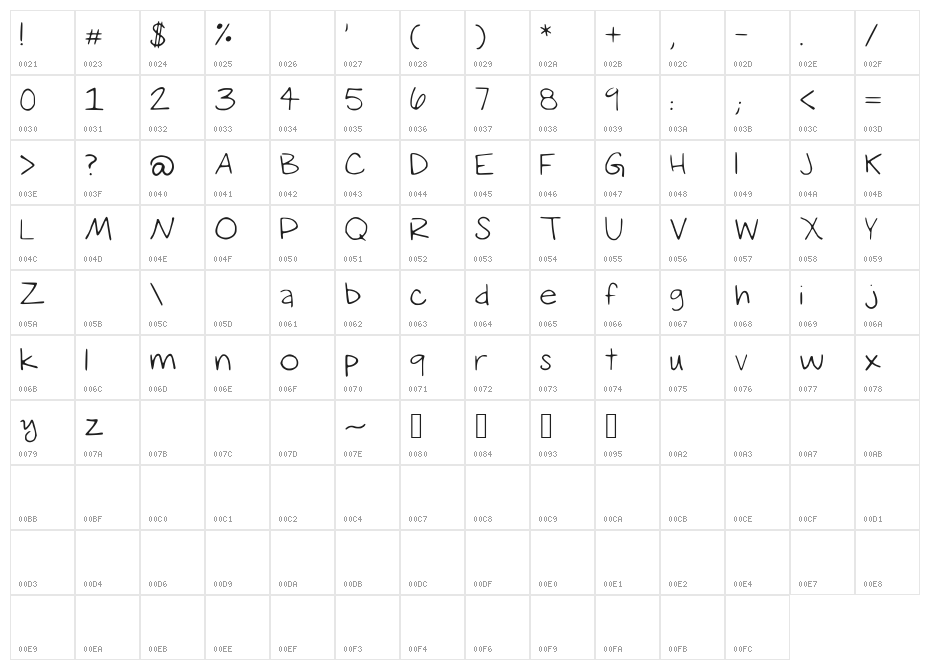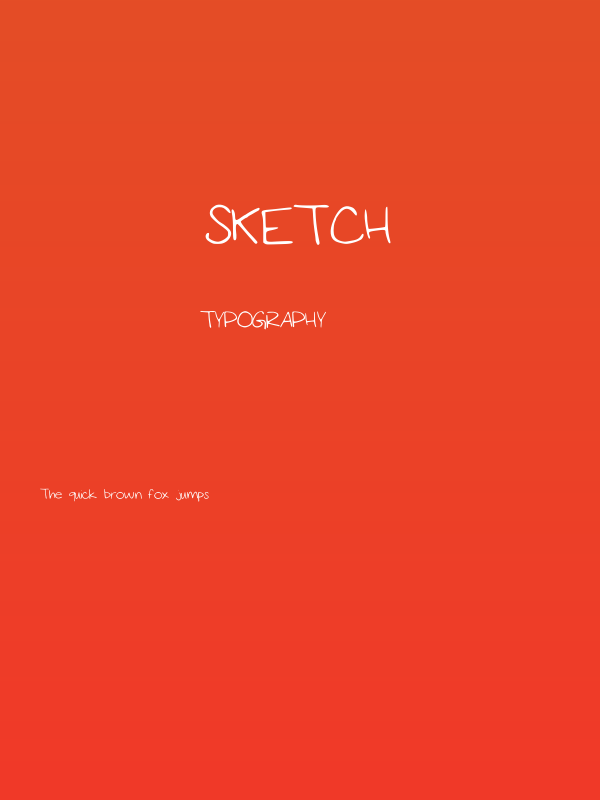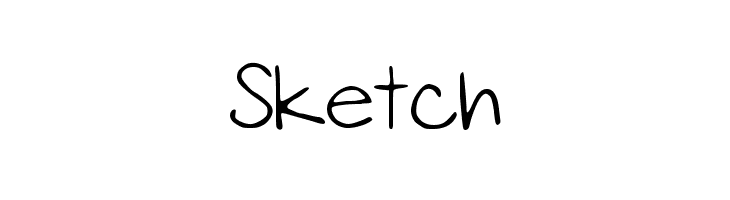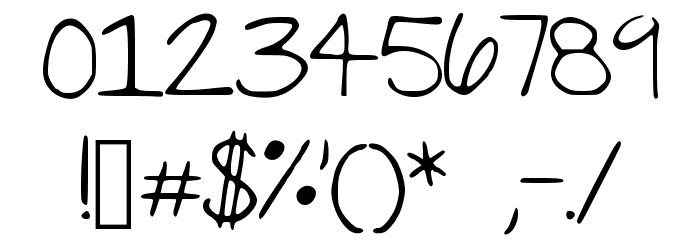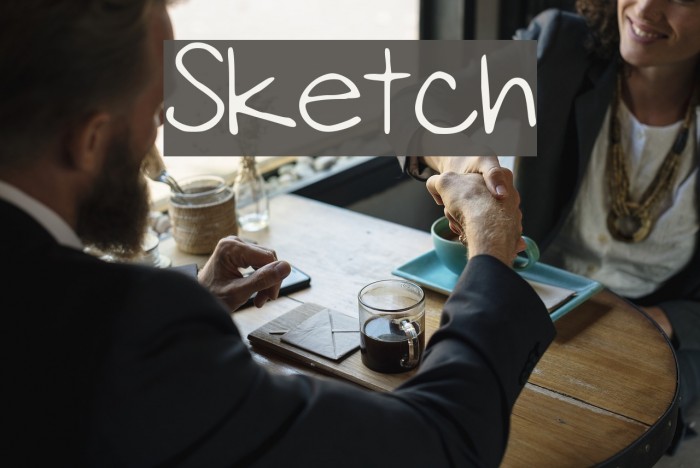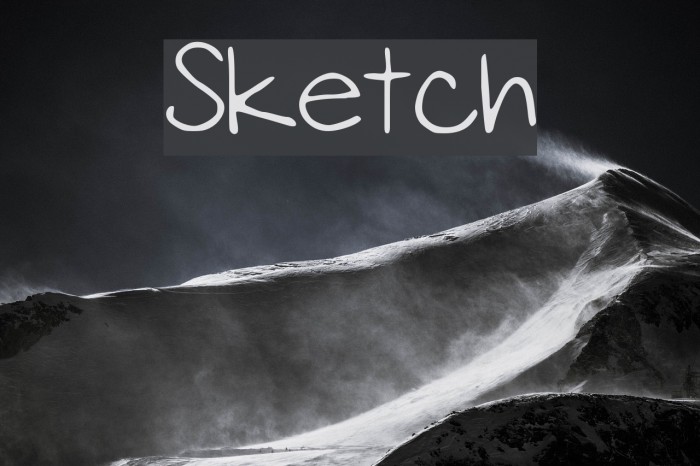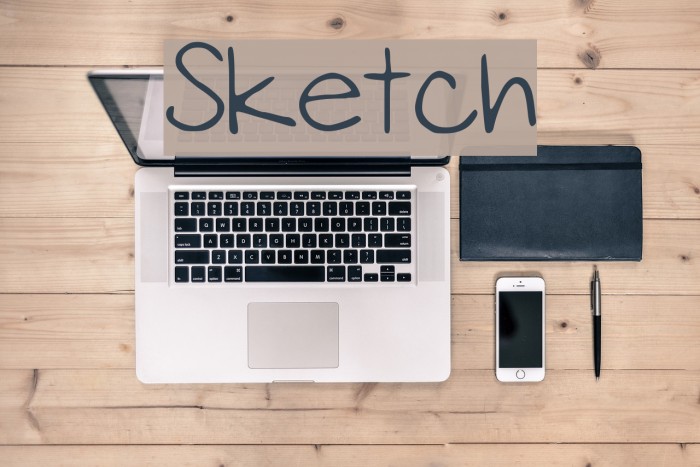
Sketch Font
Sketch Description
This playful and informal font features a hand-drawn aesthetic, giving it a casual and approachable feel. The uppercase letters are slightly irregular, adding to the whimsical charm, while the lowercase letters maintain a consistent flow. The numbers and special characters follow the same sketch-like style, making them perfect for creative projects. The strokes are moderately thick, providing good readability without losing the artistic touch. This font is ideal for designs that require a personal and friendly vibe, such as children's books, greeting cards, or playful branding.
| Proposed Projects | Children's books, greeting cards, playful branding, creative posters. |